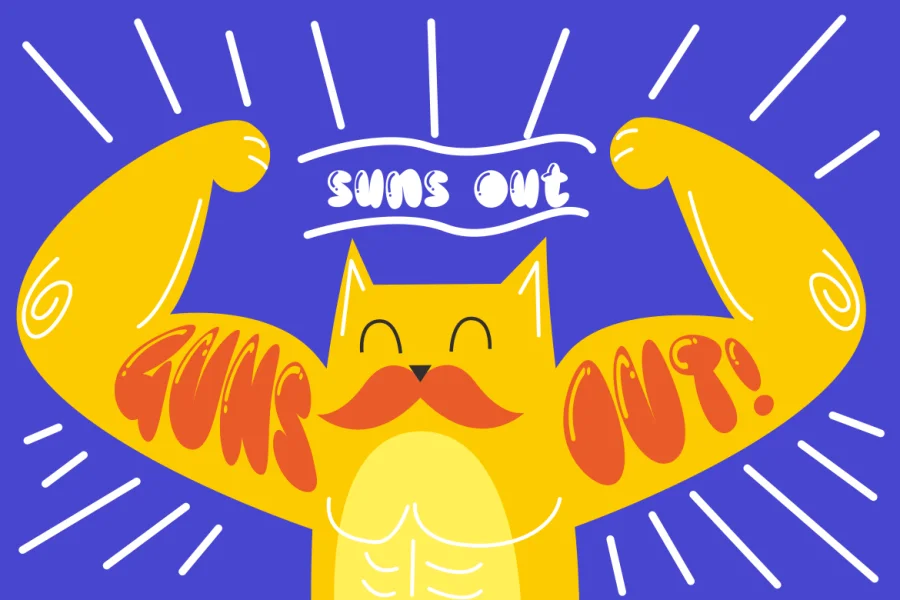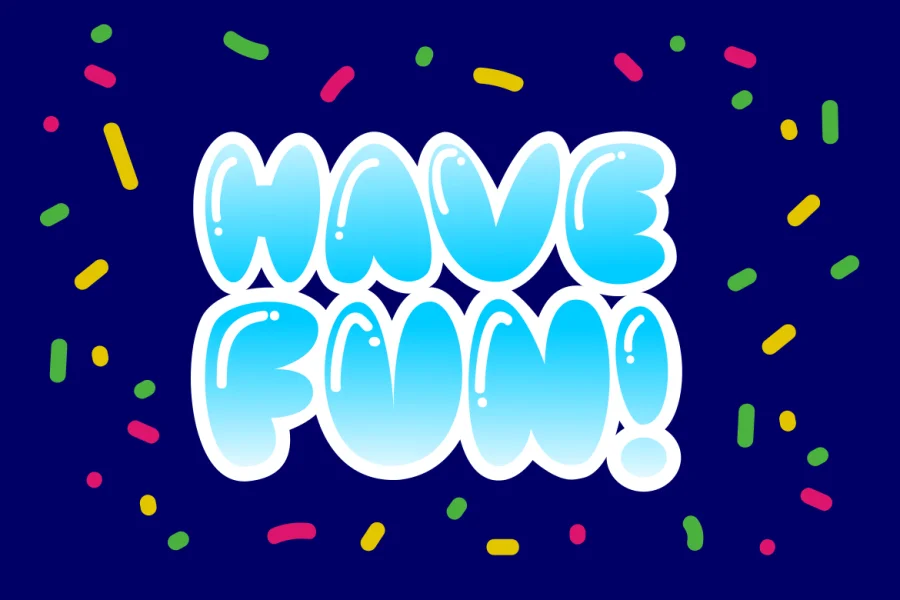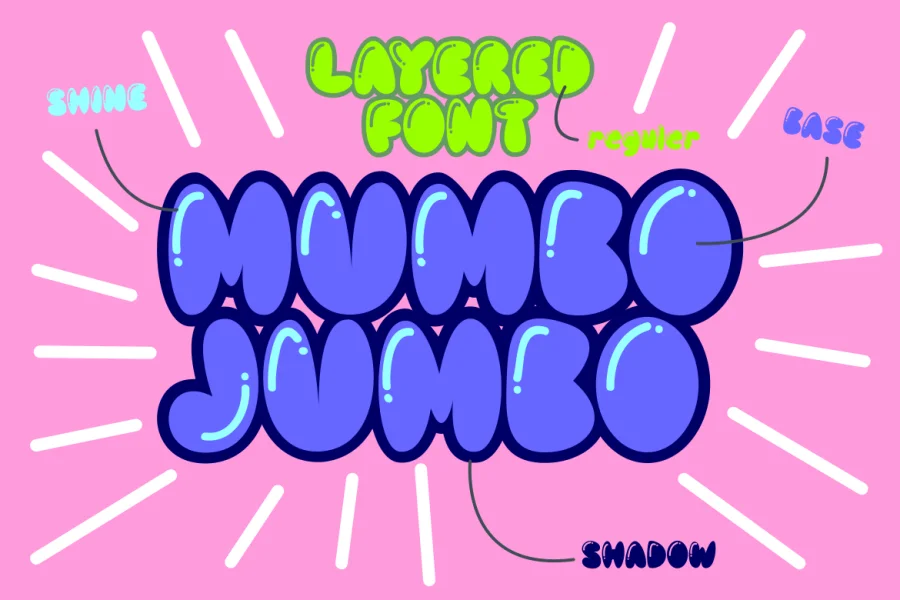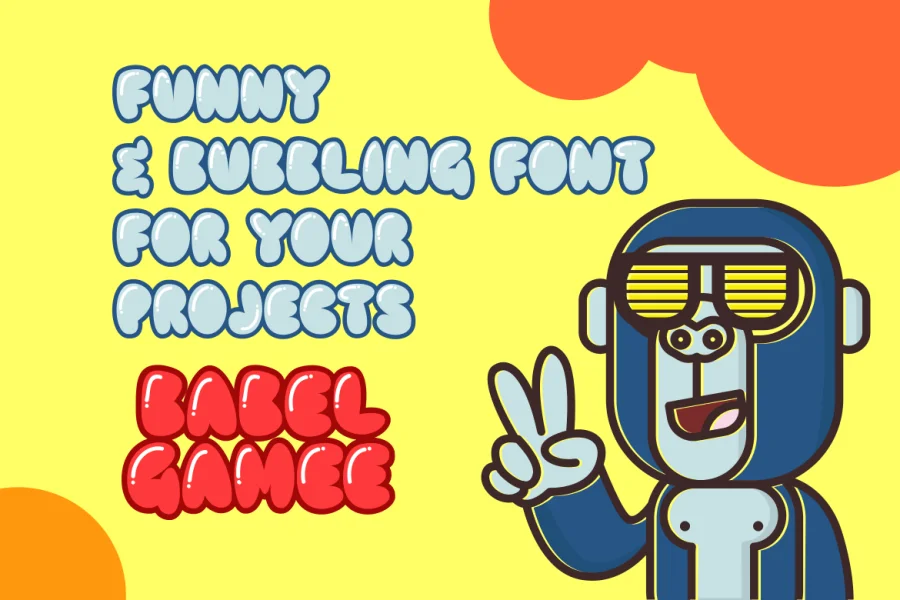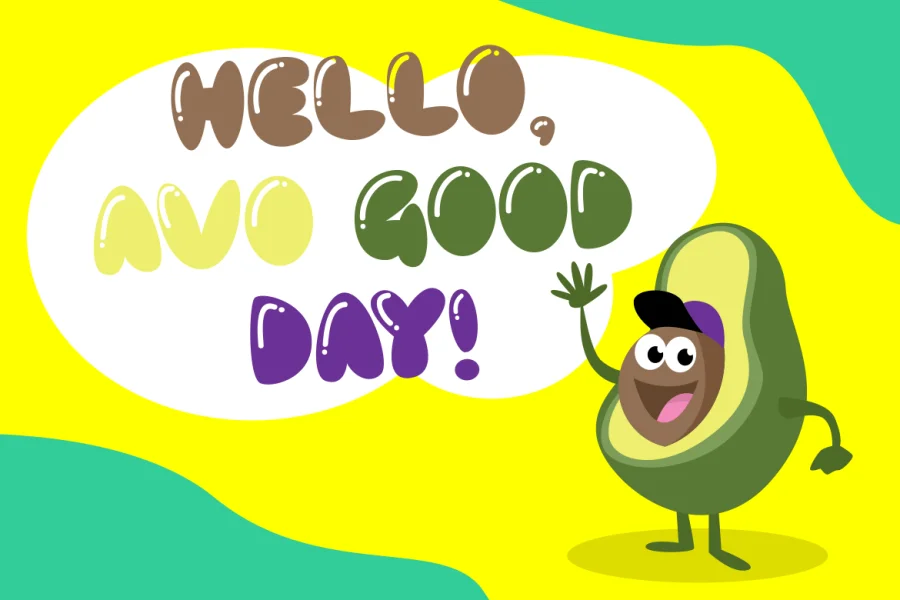
With rounded and shiny shape, BABELGAMEE suits best for any children related projects,
from t-shirt, magazine, poster, a leaflet, or some wall art designs.